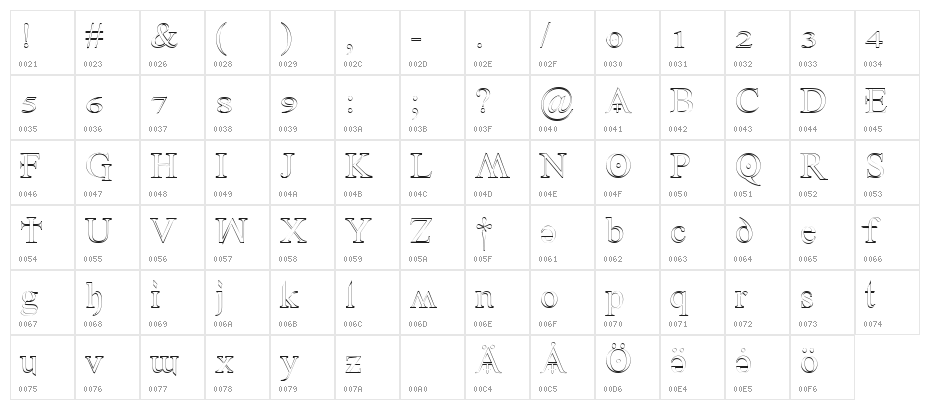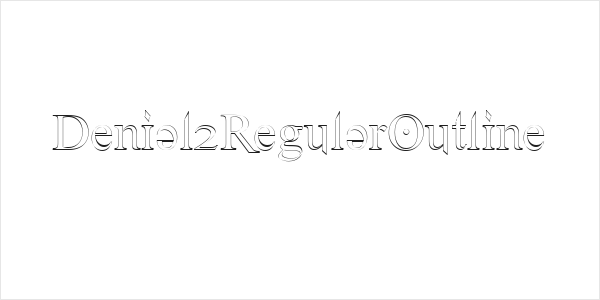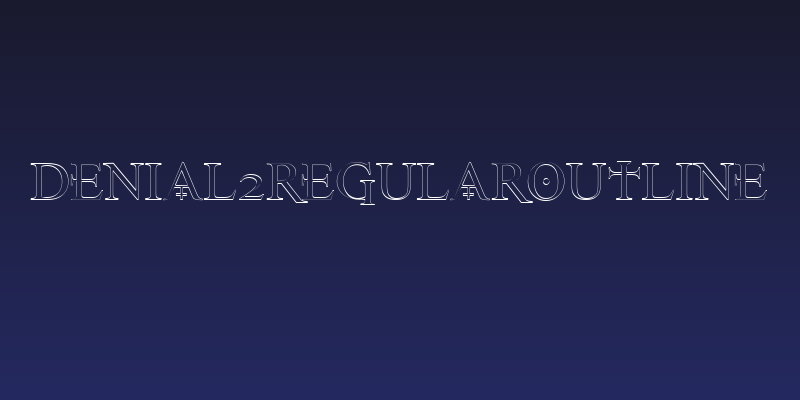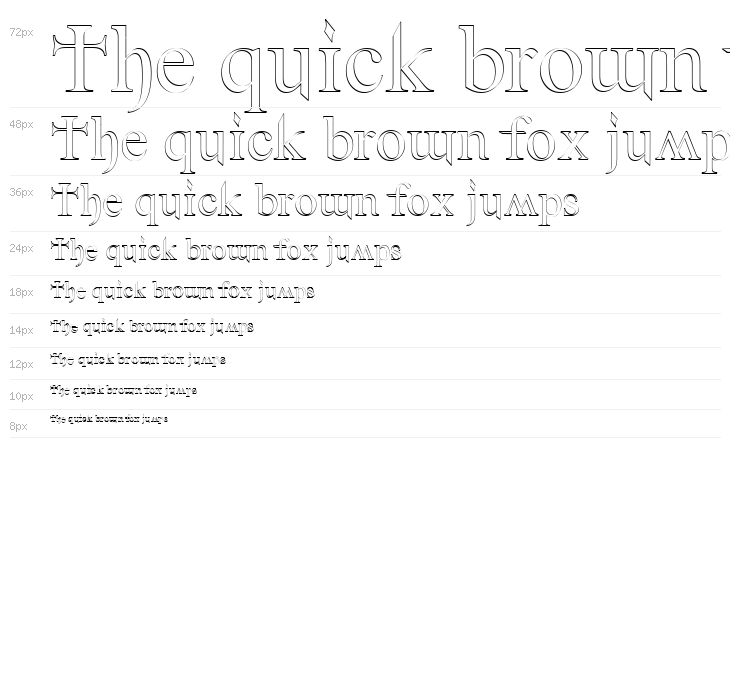
Denial2RegularOutline Font
Denial2RegularOutline Description
This font features an elegant and sophisticated outline style, characterized by its thin, precise lines that form the contours of each character. The uppercase letters exhibit a classic serif design, with sharp, angular serifs that add a touch of formality and tradition. The lowercase letters maintain a consistent style, with smooth curves and a balanced structure. Numbers and special characters are crafted with the same attention to detail, ensuring a harmonious appearance across all glyphs. The overall aesthetic is both modern and timeless, making it suitable for a variety of design applications.
| Proposed Projects | Ideal for luxury branding, editorial design, wedding invitations, and high-end product packaging. |